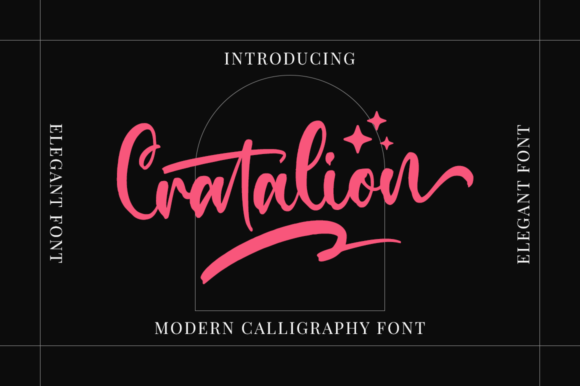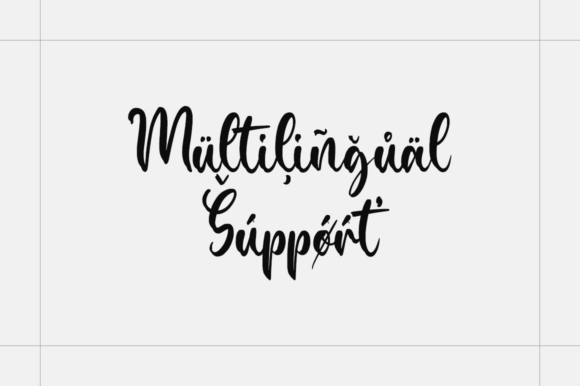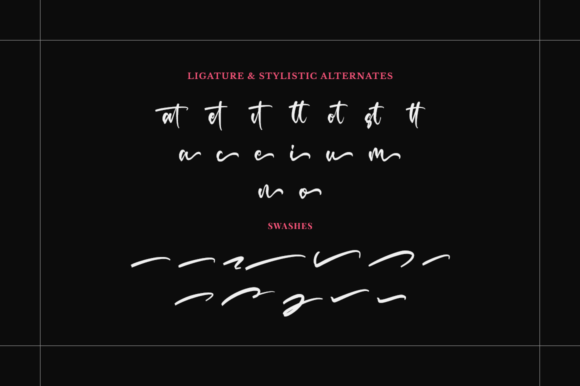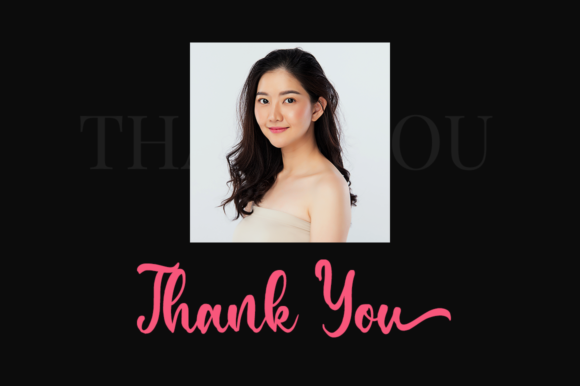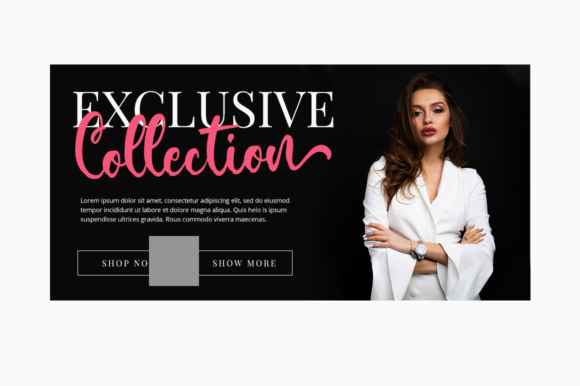
About Cratalion Font
Cratalion is a lovely and timeless handwritten font. It is the best choice for creating eye catching logos, branding and quotes. Every letter has a unique and beautiful touch, which will make your design come alive!